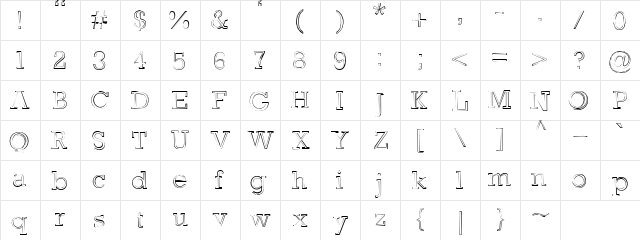
hollowedout Font Preview
hollowedout hollowedout
hollowedout Font Details
| Style | hollowedout |
| Foundry | Lisa Essenmacher |
| Designer | Lisa Essenmacher |
Design Context for hollowedout Typeface
hollowedout is a composed and adaptable typeface that performs quietly and consistently across a wide range of design contexts.